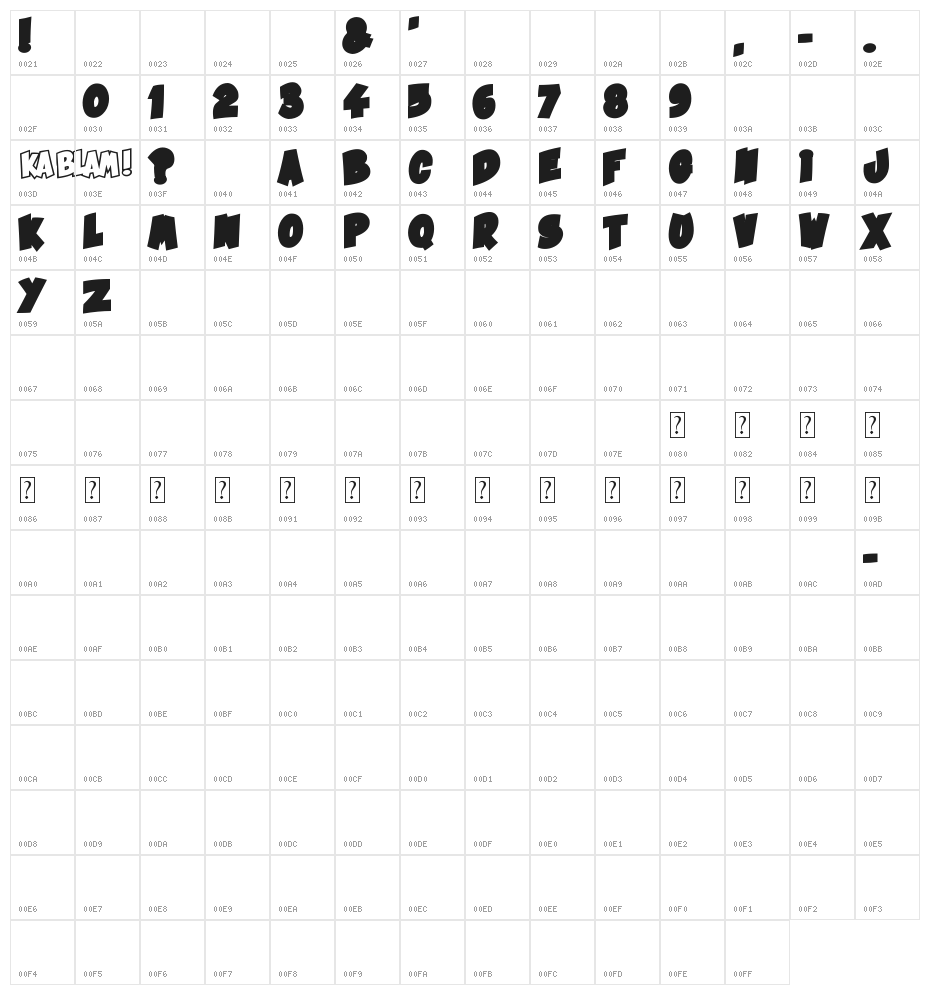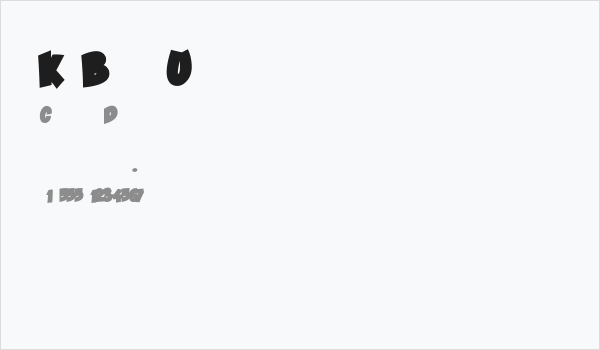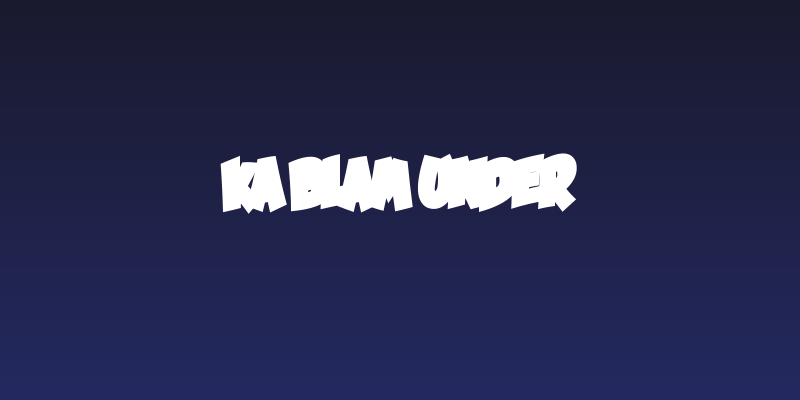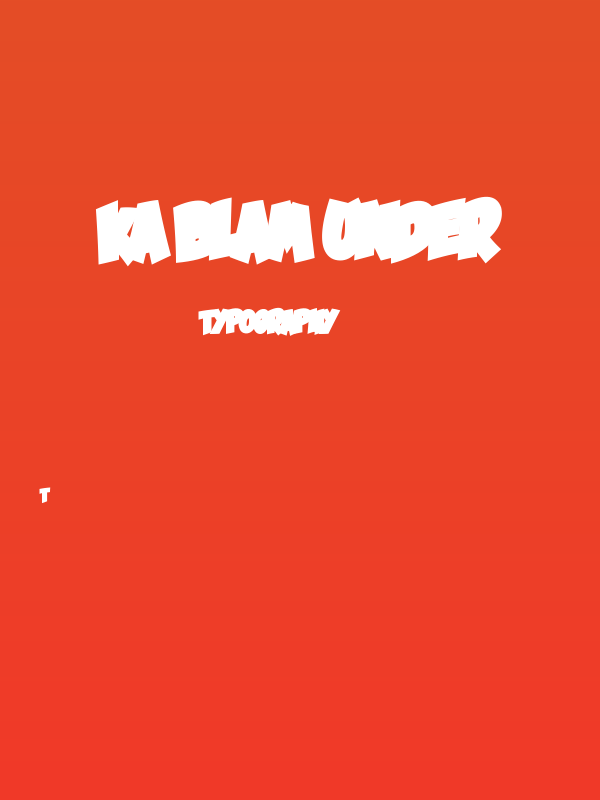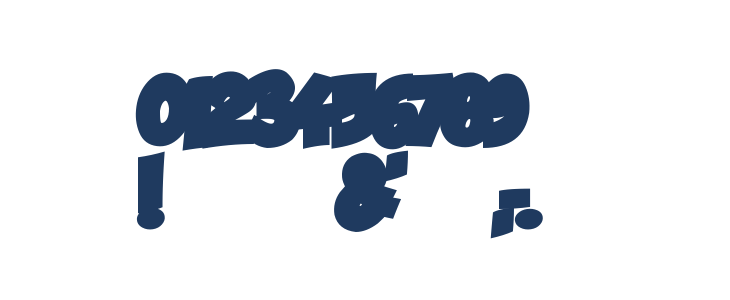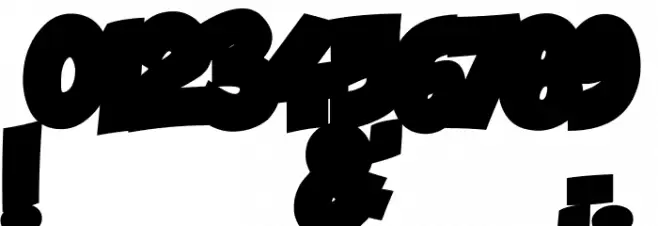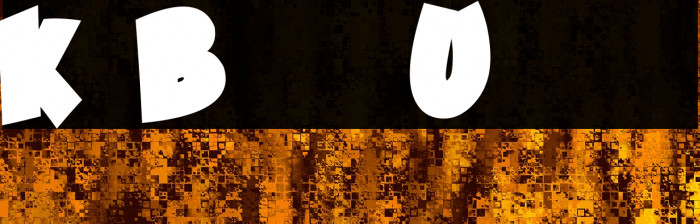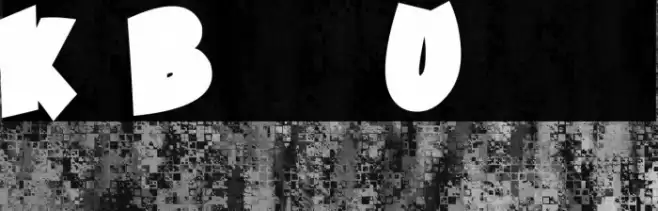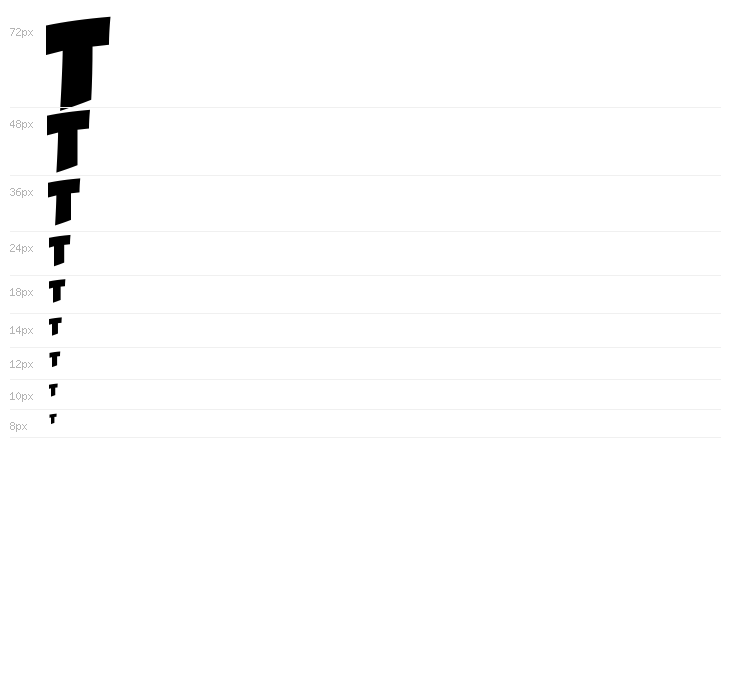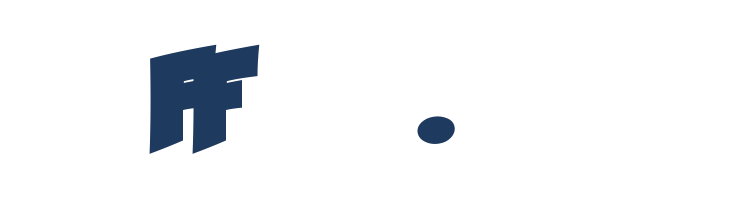
Ka Blam Under Font
This font features a bold and dynamic style with exaggerated, playful letterforms. The characters are heavily stylized with thick strokes and a slightly irregular, hand-drawn appearance. The uppercase letters are particularly striking, with sharp angles and a sense of movement. The lowercase letters maintain the same boldness, creating a cohesive look. Numbers and special characters follow the same design principles, ensuring consistency across all glyphs. This font is designed to grab attention and convey a sense of fun and energy, making it ideal for creative and informal applications.
| Overall Style | Playful, Energetic, Bold |
| Proposed Projects | Ideal for comic book titles, children's book covers, playful branding, and eye-catching posters. |